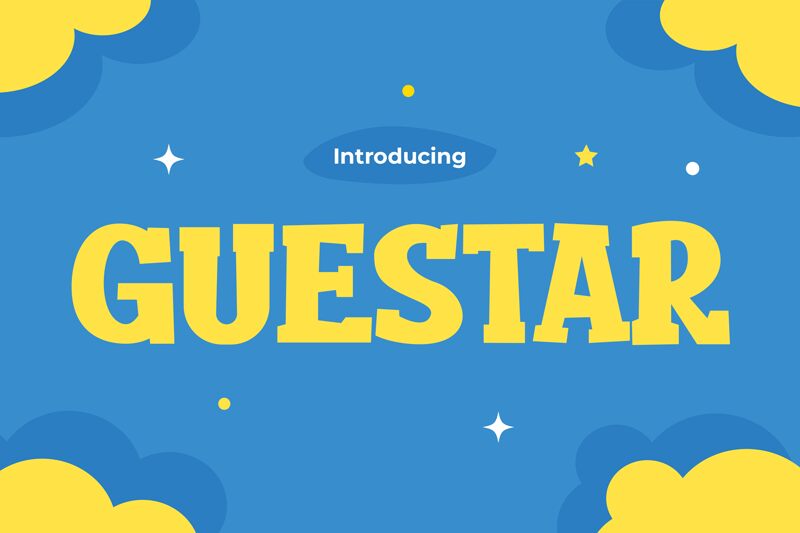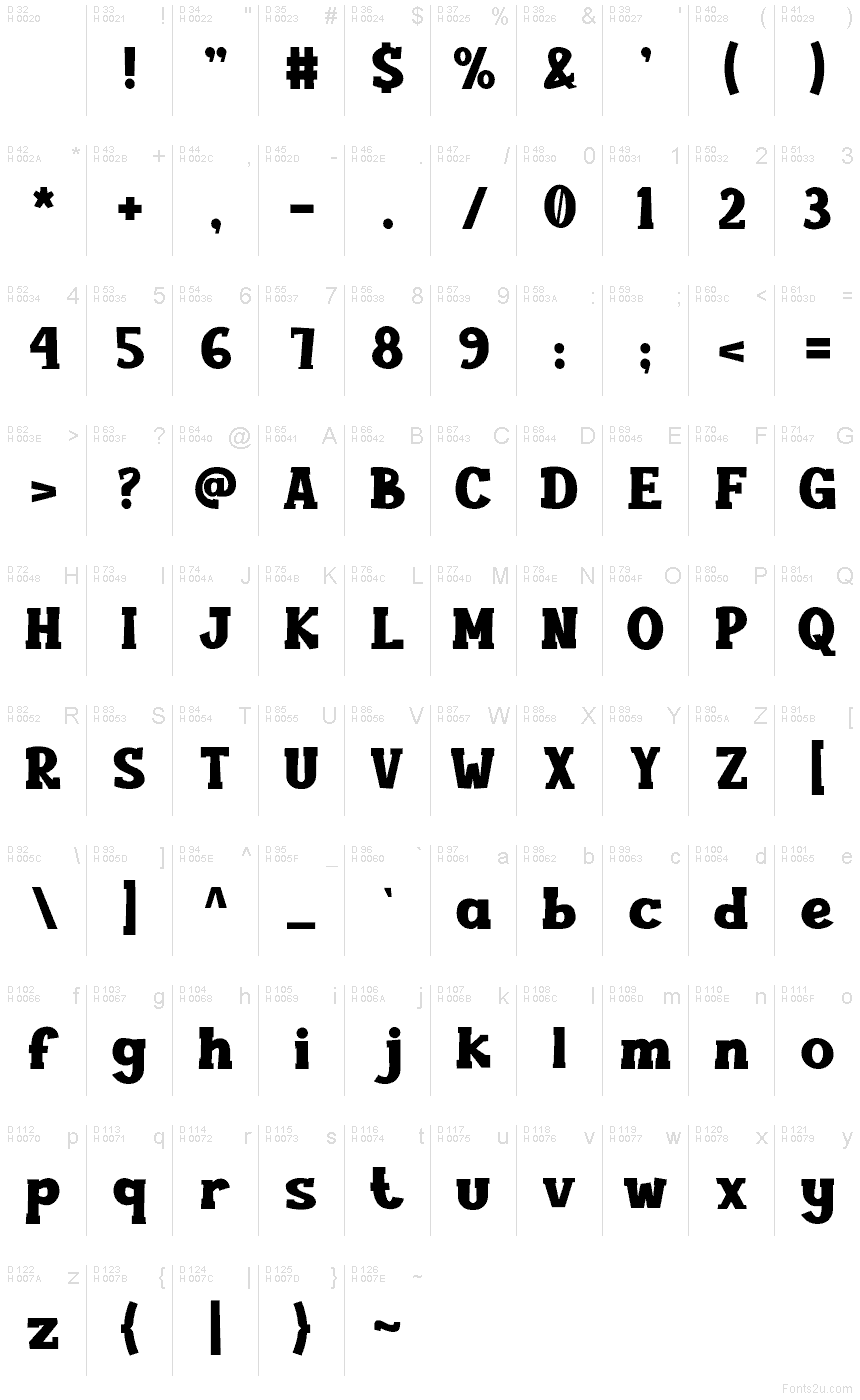
Questar
Questar font by Pinisiart is a free cartoon display font that leans straight into storybook adventure. Its chunky curves, soft wedge-like flares, and buoyant rhythm feel hand-painted—inky, friendly, and bold enough to carry a headline from across the room. The letters bounce without wobbling, giving you playful energy with surprisingly clean readability.
Using Questar, you’ll nail kids’ book covers, game logos, toy packaging, festival posters, YouTube thumbnails, and cheerful shop signage. This free font shines at large sizes and can handle tight wordmarks; give it roomy margins and pair with a clean, light sans for details to keep the focus on that bold, upbeat voice.